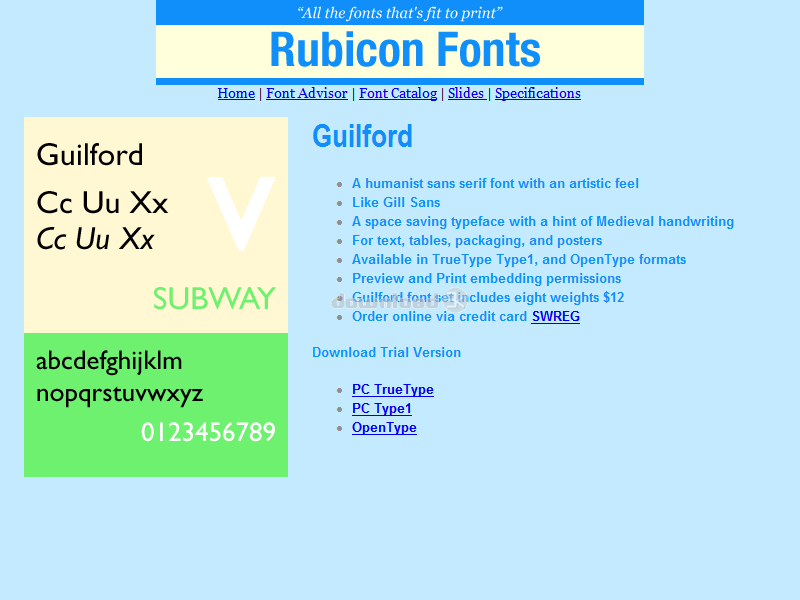
"Humanist sans serif font, artistic look"
Humanist sans serif font with an artistic feel. Like Gill Sans. A space saving typeface with a hint of Medieval handwriting. An all purpose design, great for text, tables, packaging, posters. Use in any size. Accurate and hinted, matching font metrics, standard character set, kerning pairs. Professional print quality for inkjet, laser, typesetter to 3500 dpi. Purchasers receive 8 font variants as follows: Light, Light Oblique, Normal, Oblique, Bold, Bold Oblique, Extrabold, Ultrabold.Requirements: Older versions of Windows require Adobe Type Manager.